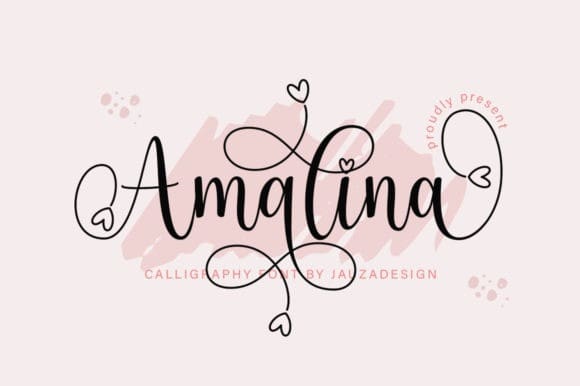
Amalina Font
Amalina Font is a thin lettered and graceful script font. Fall for its ravishing style and use it to create lovely designs. Amalina is PUA encoded which means you can access all of the glyphs and swashes with ease!